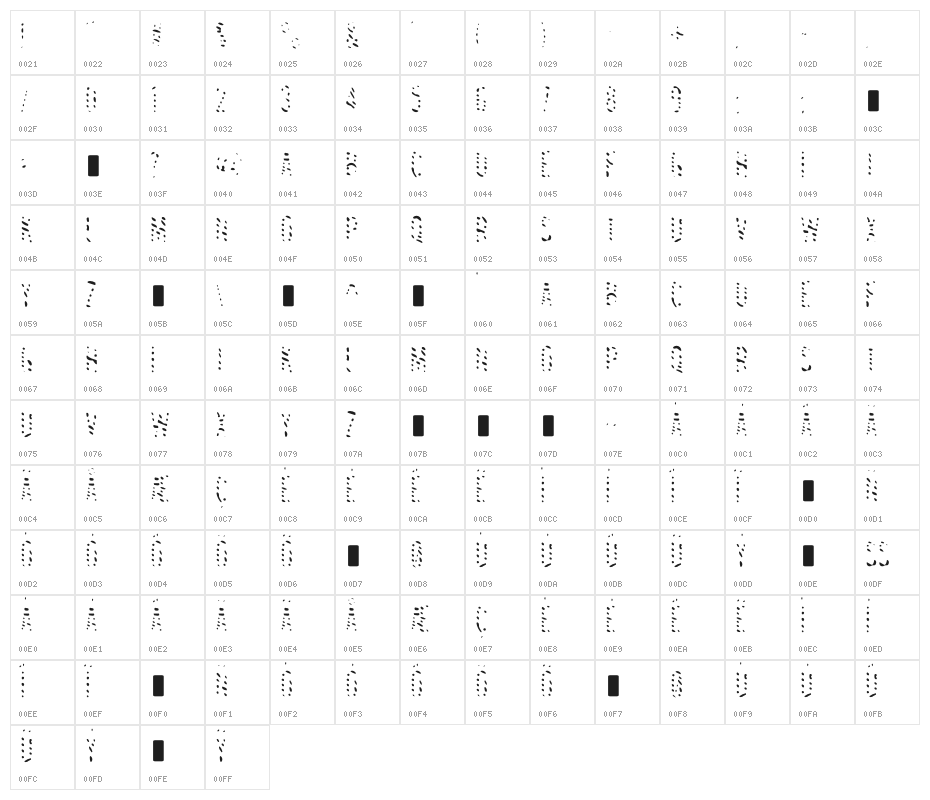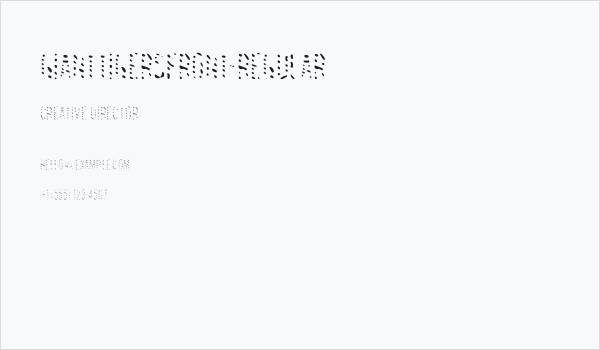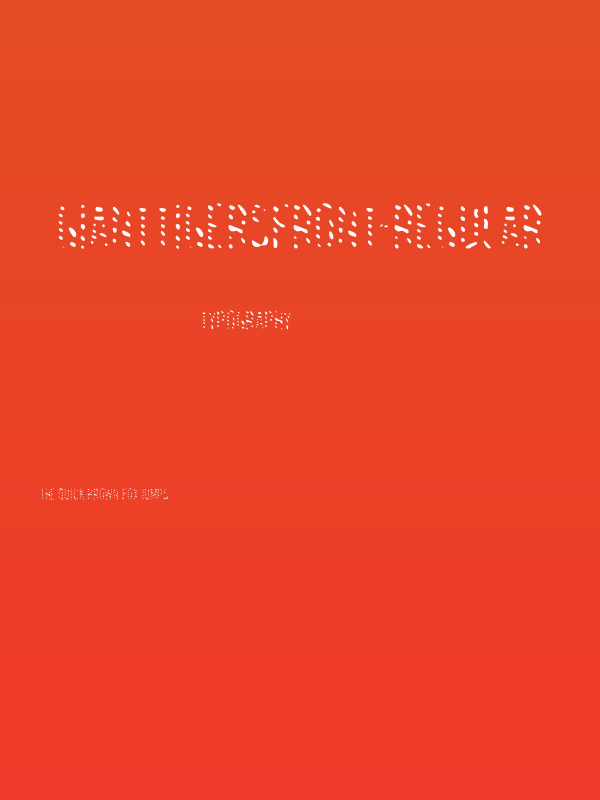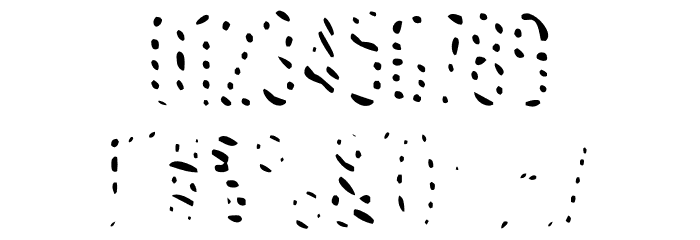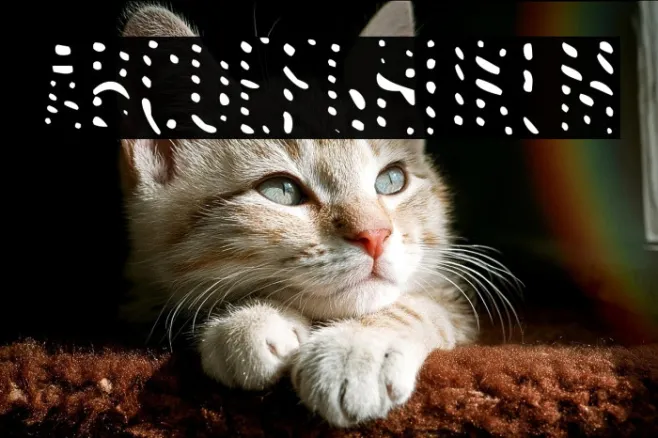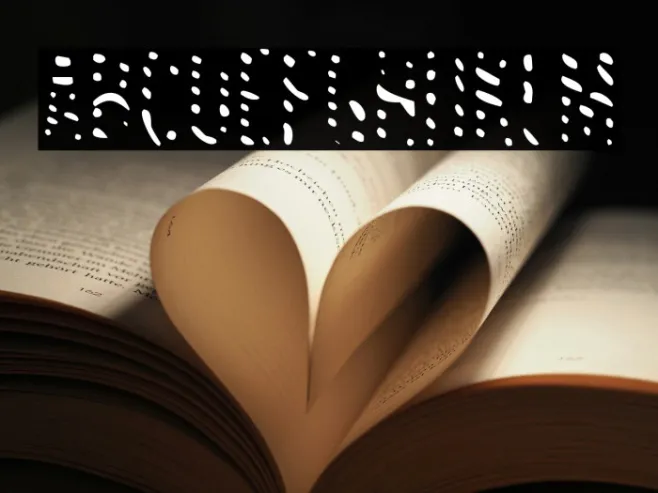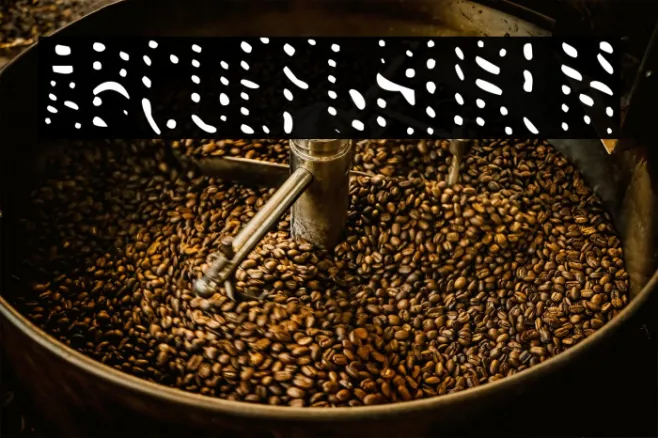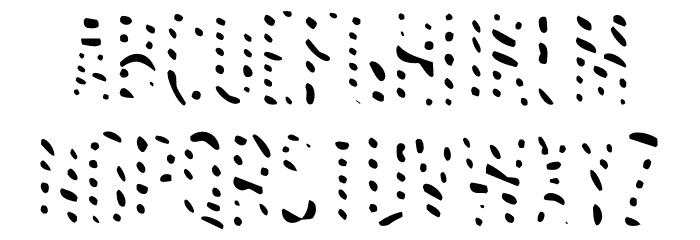
GiantTigersFront-Regular Font
This font features a unique and playful design with a pattern reminiscent of tiger stripes. The characters are bold and eye-catching, making them ideal for attention-grabbing headlines or creative projects. Each letter is crafted with a series of irregular, organic shapes that create a sense of movement and energy. The font maintains a consistent weight throughout, ensuring readability despite its decorative nature. Its distinct style is both modern and artistic, offering a fresh take on traditional typefaces.
| Proposed Projects | Ideal for use in children's book covers, playful branding, posters, and event invitations. |